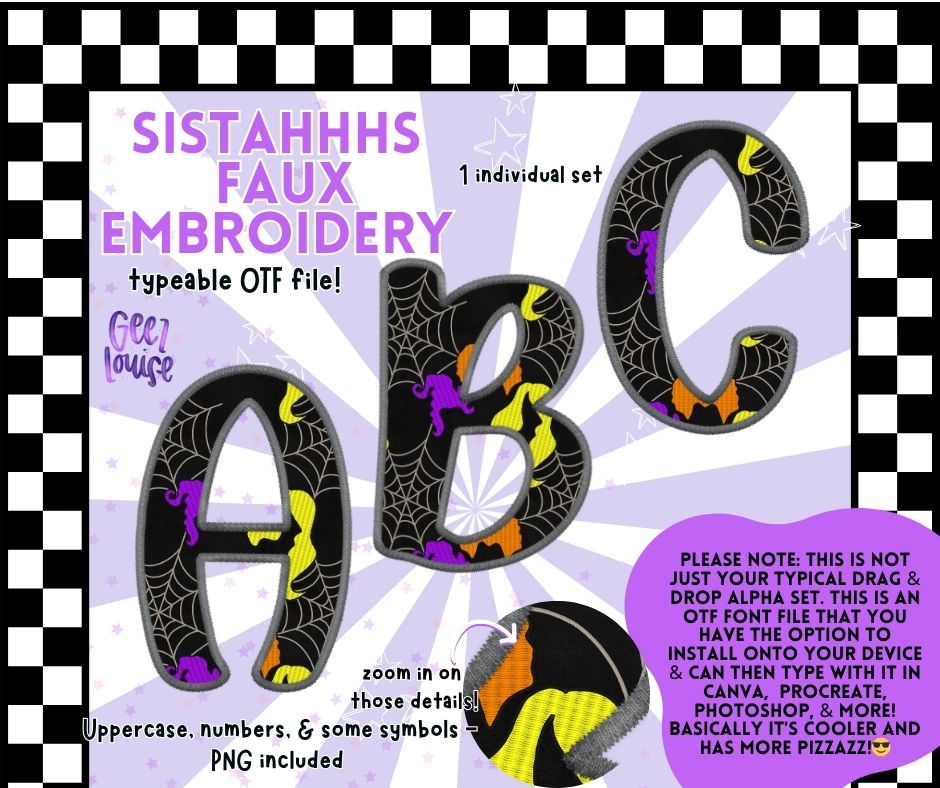
Sistahhhs Faux Embroidery - Halloween OTF Font + PNG Alpha Set
Say hello to spooky season sass with our Sistahhhs Faux Embroidery OTF Font! 🕷️🖤 This Halloween-inspired typeable font gives you the stitched, embroidered look without the extra work. Featuring creepy-cute spiderwebs, bats, and witchy vibes, this Halloween font file is perfect for sublimation designs, custom Halloween shirts, digital scrapbooking, and more.
✔️ Uppercase letters, numbers, and select symbols included